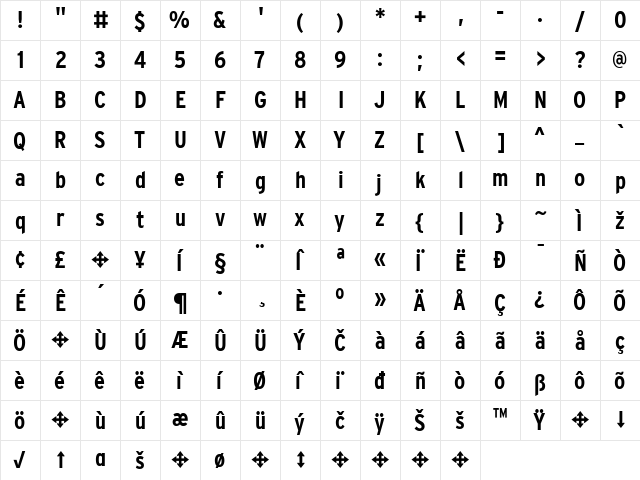
InterstateCondensed Bold Font Preview
Design Context for InterstateCondensed Typeface
InterstateCondensed takes a measured approach to typography — its balanced proportions and neutral character make it a reliable workhorse for both digital and print work. Its bold stroke weight gives it real presence on the page. Its narrow stance lets it pack a punch even in space-constrained designs.